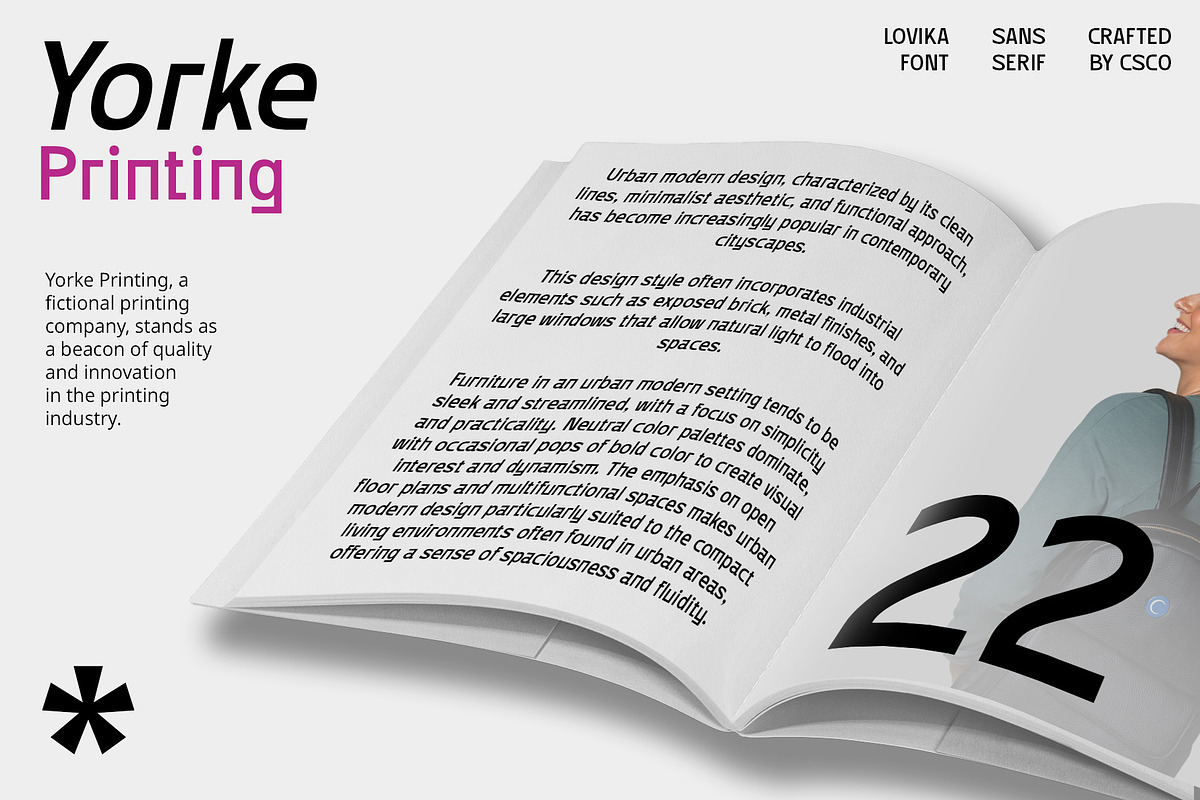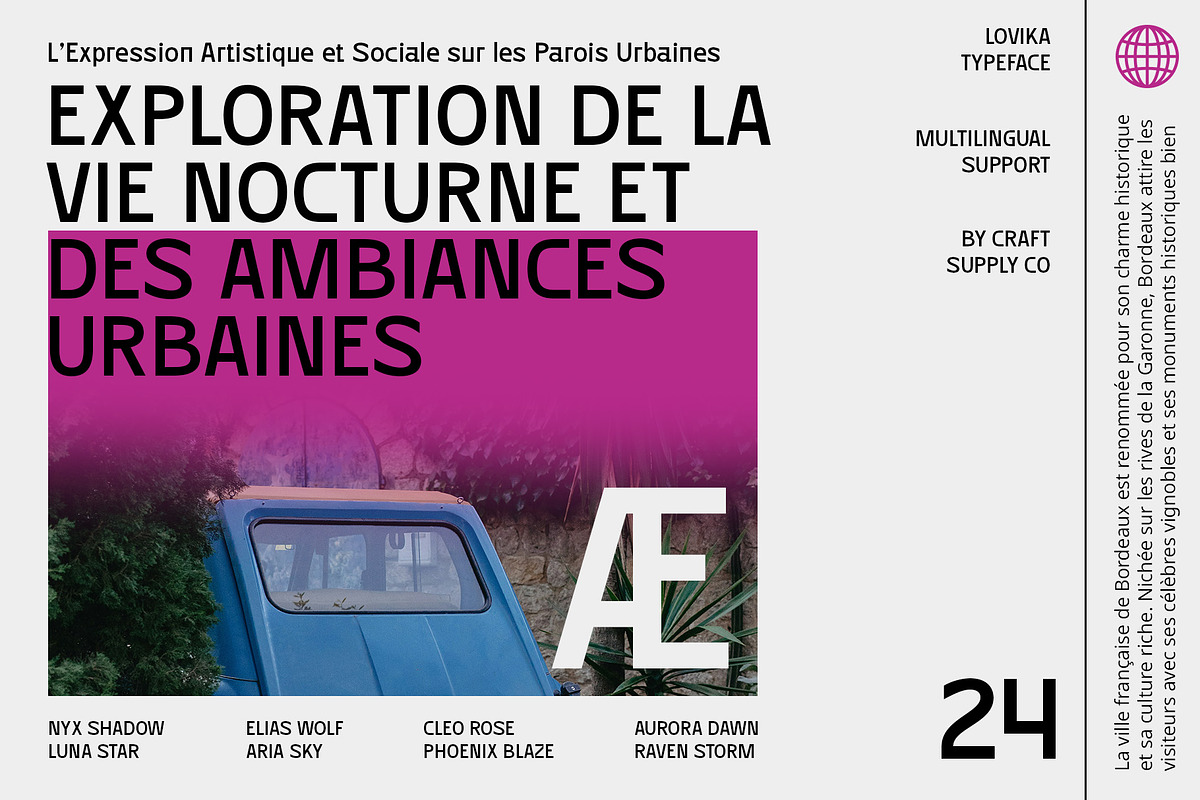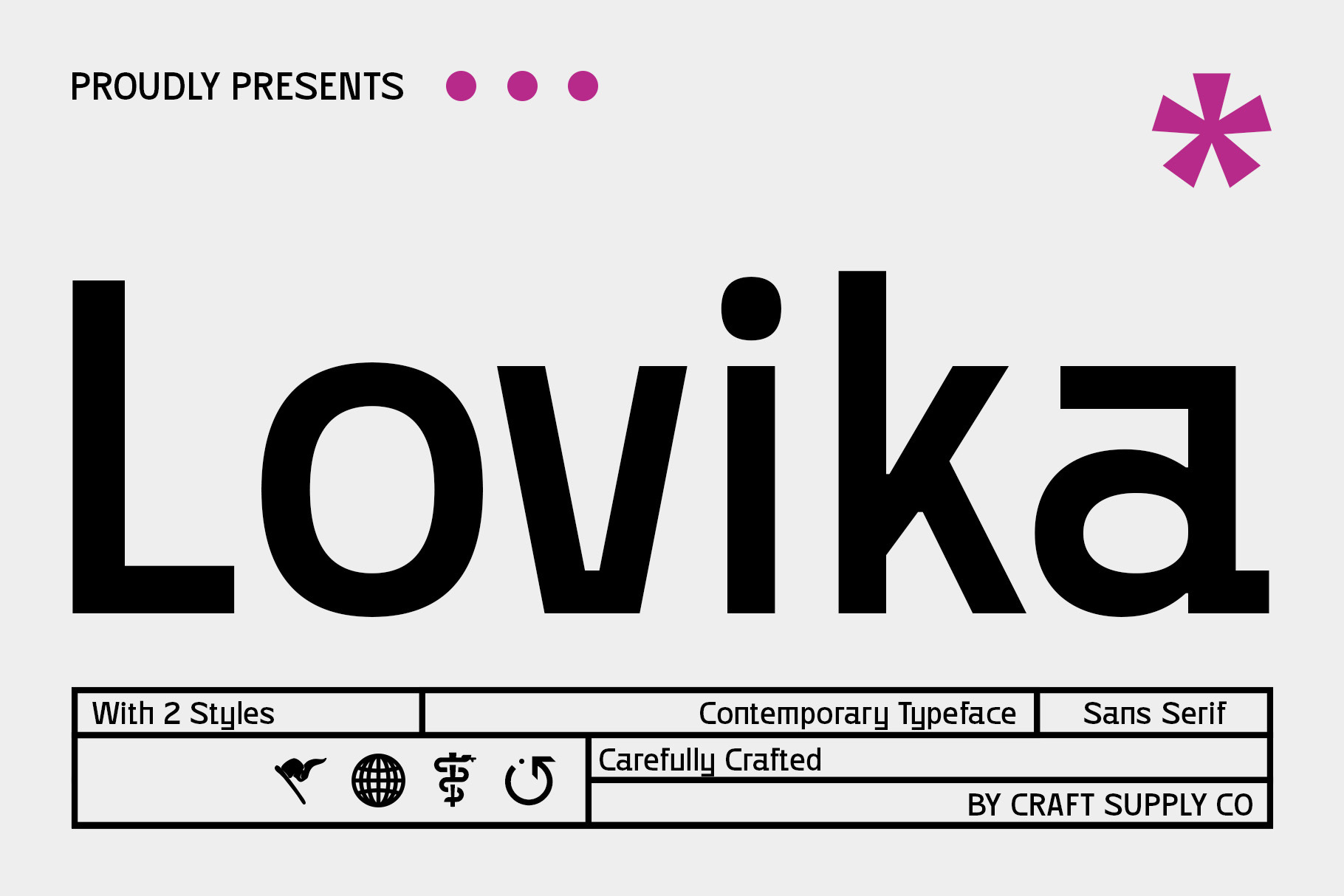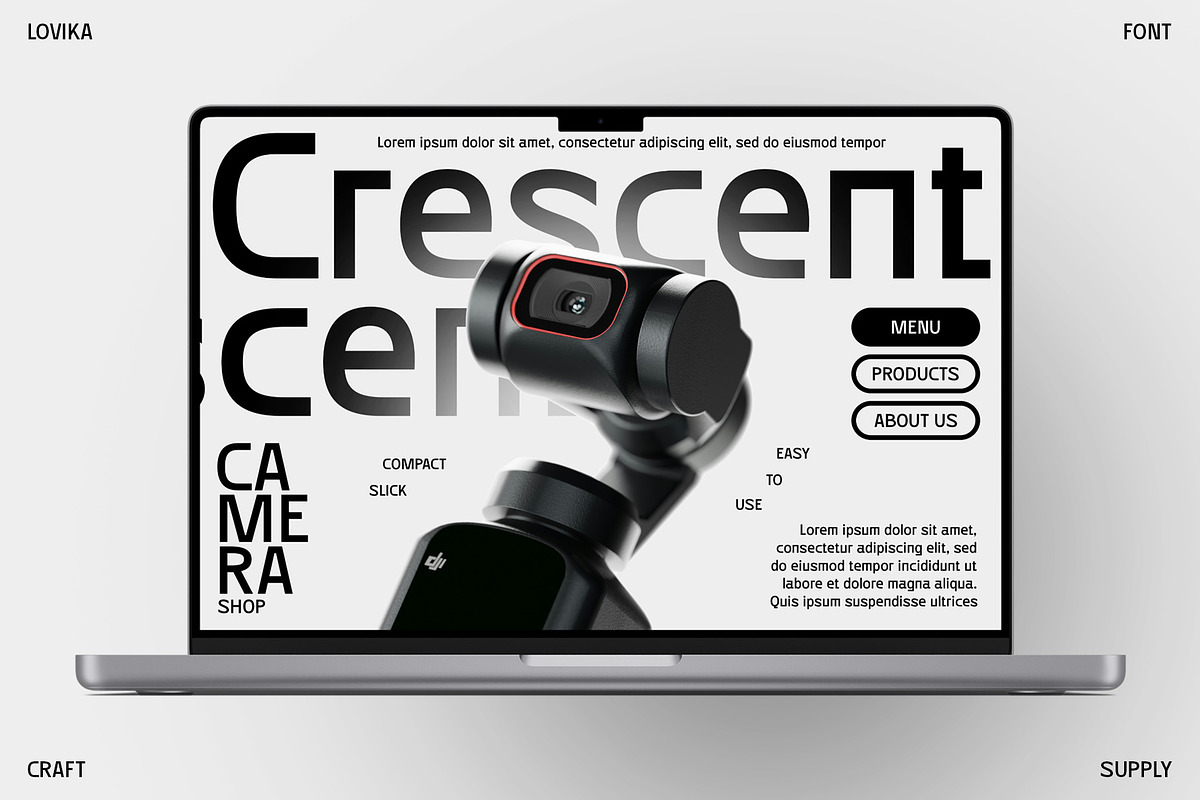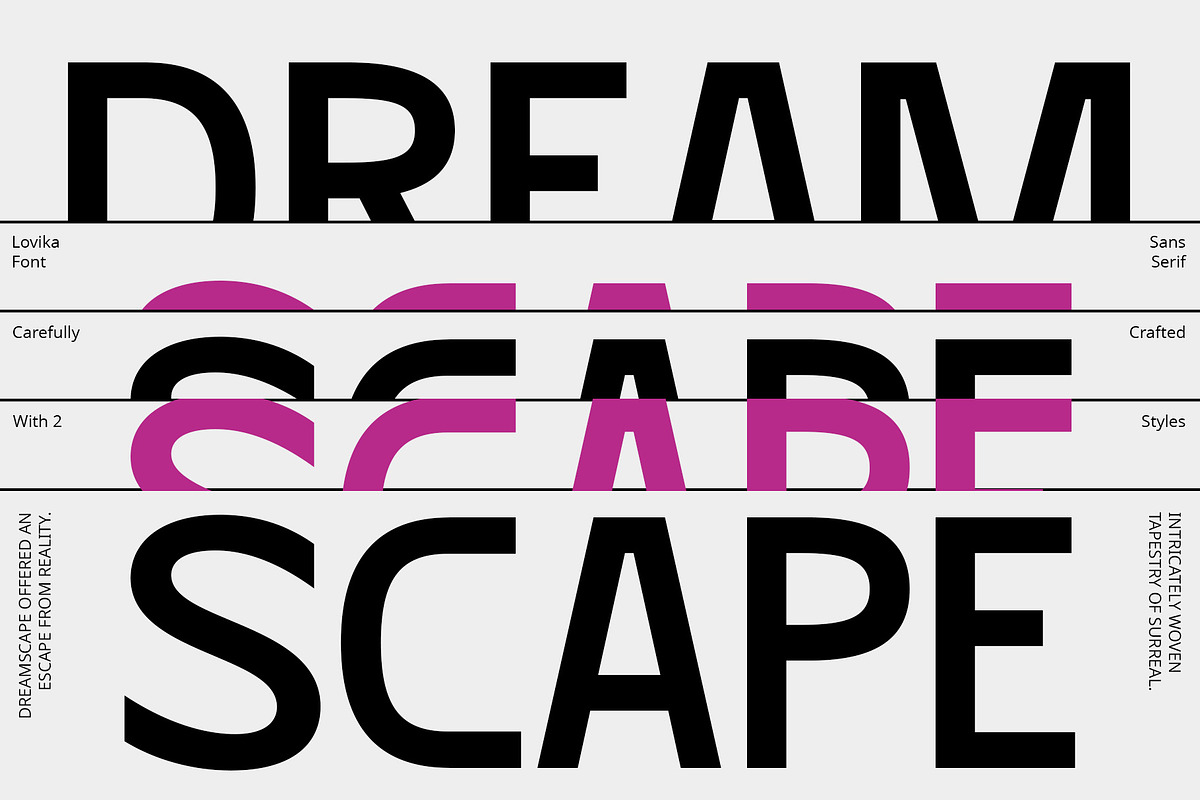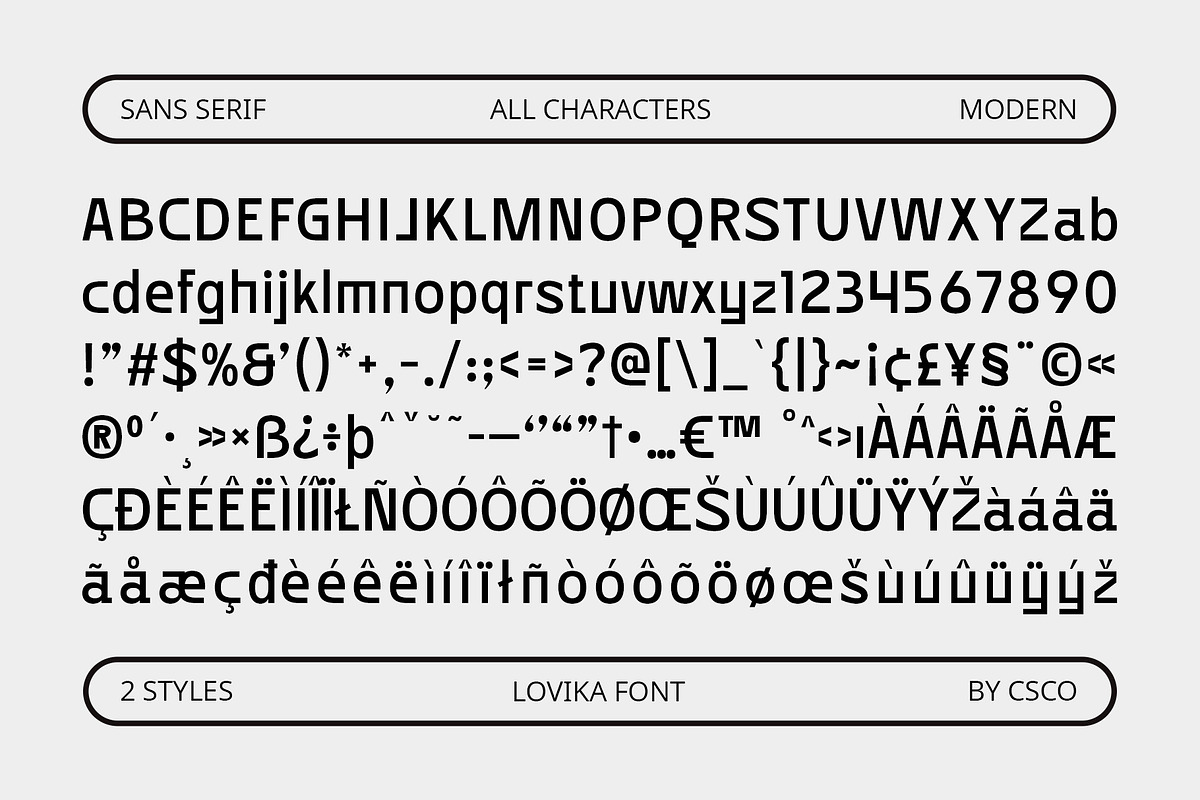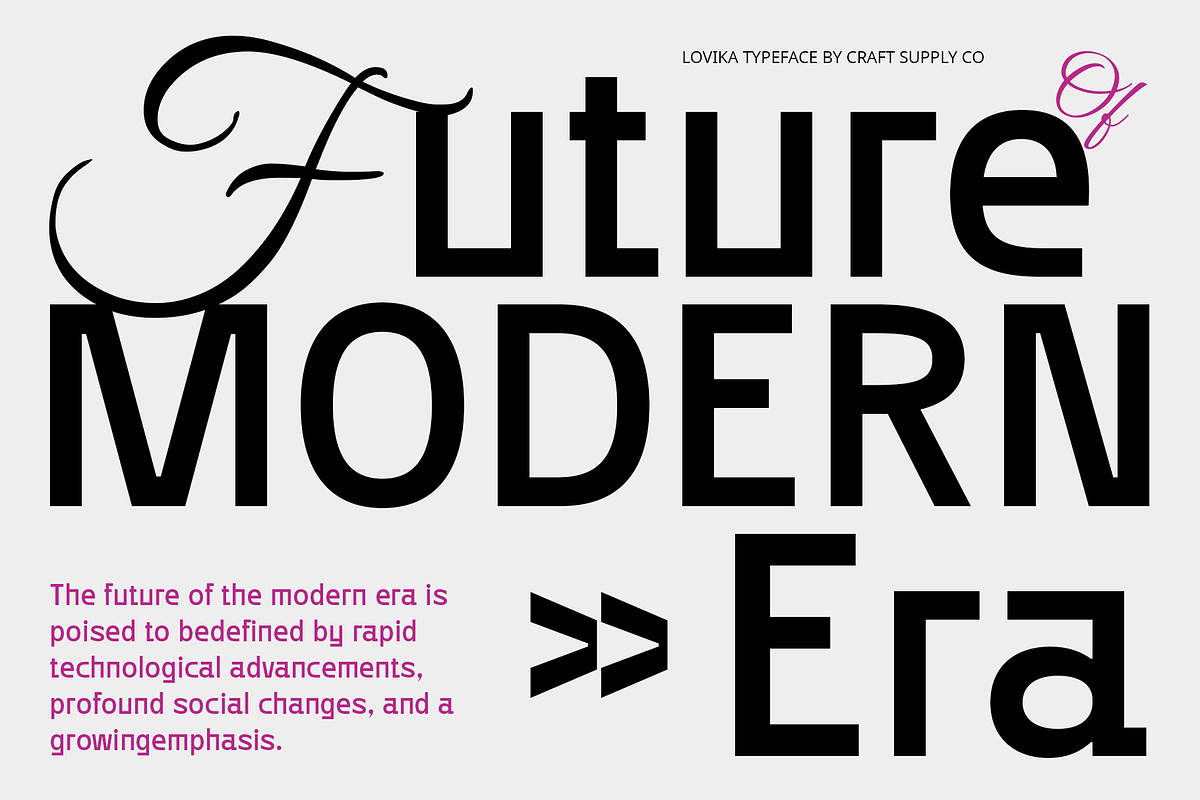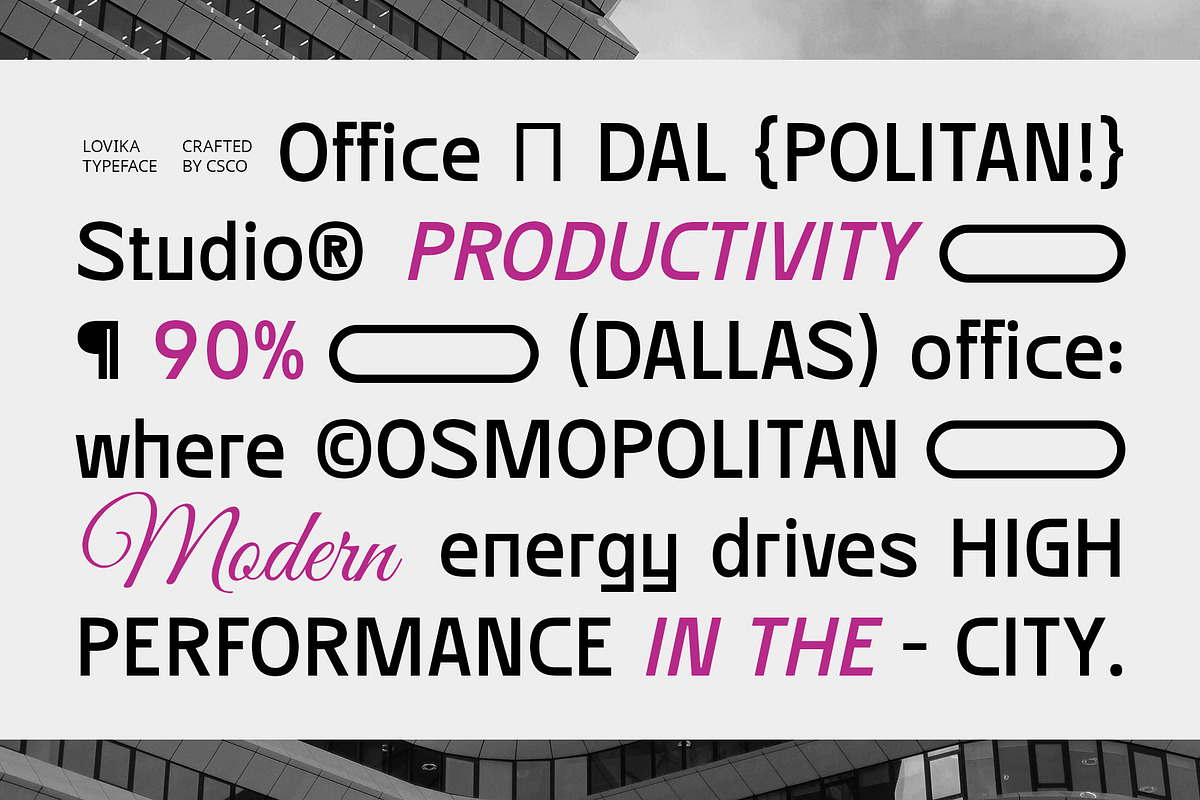
Lovika – Contemporary Font
Lovika – Contemporary Font: Clarity and Sophistication
Ideal for Professional Designs
Lovika – Contemporary Font is a modern sans serif typeface perfect for professional designs. With its clean lines and contemporary style, it ensures clarity and sophistication, making it ideal for corporate branding, presentations, and web design.
Enhance Corporate Branding
With its sleek and modern design, this contemporary font enhances corporate branding efforts. It conveys professionalism and reliability, making it suitable for logos, business cards, and other brand identity materials that require a clean and sophisticated appearance.
Perfect for Presentations and Web Design
Lovika – Contemporary Font is well-suited for presentations and web design, where clarity and readability are essential. Its clean lines ensure information is presented clearly and effectively, enhancing user experience and visual appeal.
Versatile for Various Applications
Versatile and elegant, this font adapts seamlessly to various design applications. Whether used in digital or print media, this font provides a contemporary aesthetic that enhances the overall professionalism of your projects.
- Lovika Regular
- Lovika Italic